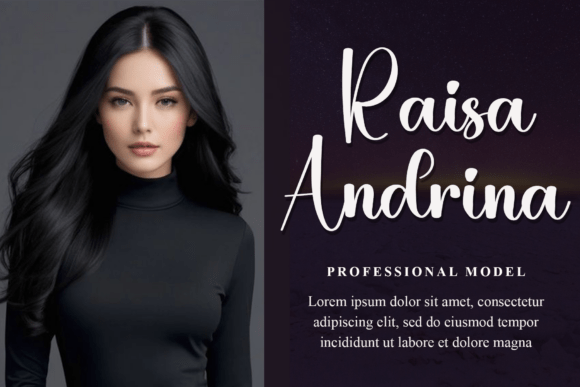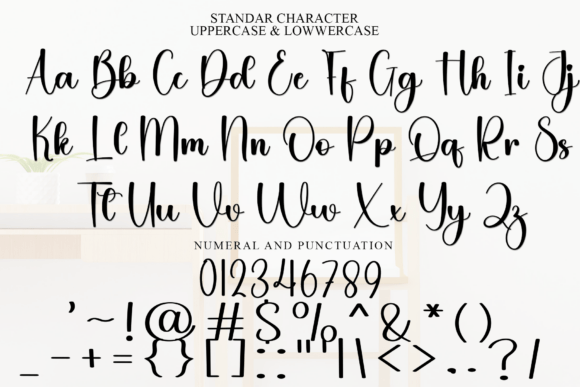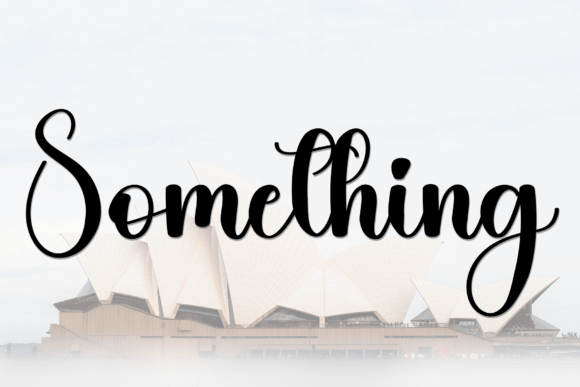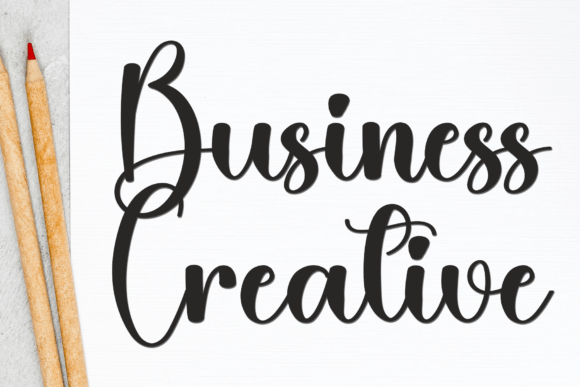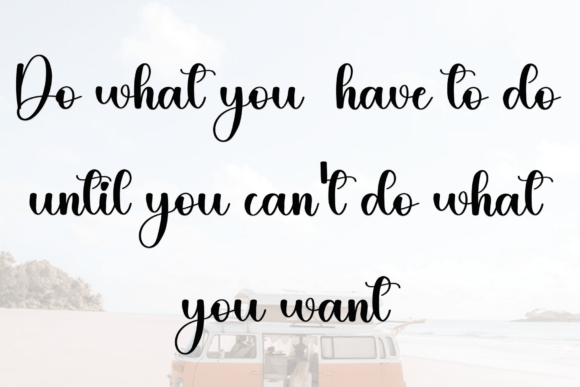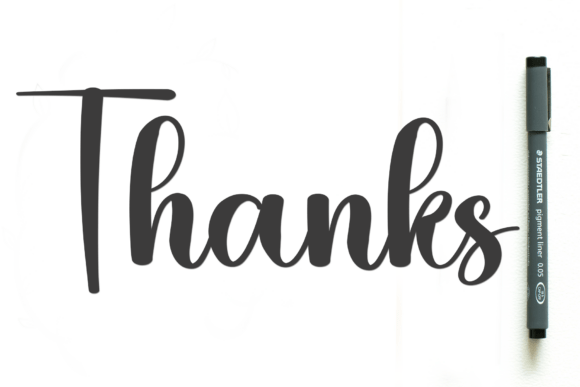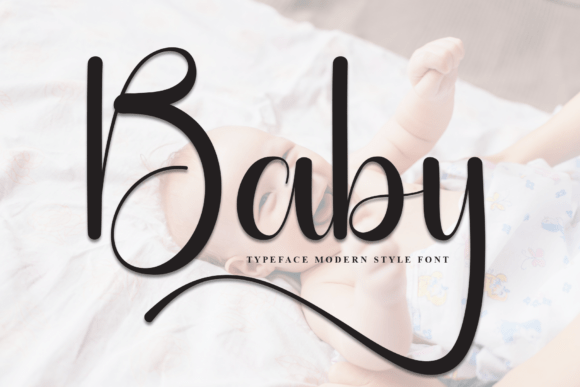
Unlocking the Beauty of Handwritten Touch
Have you ever felt the joy of scribbling down your thoughts on a piece of paper, the ink flowing effortlessly onto the page? It’s a moment of pure creativity, where the lines and curves of your handwriting bring your thoughts to life. If you’re looking to infuse this same magic into your digital designs, you’re in luck. Meet the Angela Heart Font, a stunning and versatile typeface that captures the essence of handwritten charm.
This beautiful font is designed to add a touch of warmth and personality to your designs, making it perfect for a wide range of creative projects. With its soft, unique strokes, the Angela Heart Font is sure to make your designs stand out from the crowd. Whether you’re a seasoned designer or just starting out, this font is a valuable addition to your toolkit, offering endless possibilities for creative expression.
Angela Heart Font Key Features
- Character Set: The font includes a comprehensive set of characters, including uppercase and lowercase letters, numbers, punctuation marks, and special characters, making it suitable for various types of designs.
- Unique Characteristics: This font features a unique, hand-drawn design with a mix of elegant and playful elements, making it perfect for creating eye-catching and memorable designs.
- Style Variations: Angela Heart Font includes multiple style variations, such as regular, bold, italic, and bold italic, allowing designers to experiment with different looks and feels.
Designer Review: Angela Heart Font
Overall, I think the Angela Heart Font is a lovely addition to any design project. The delicate script style makes it perfect for wedding invitations, birthday cards, and other personal greeting cards. ✨
The font’s main strength lies in its ability to convey a sense of elegance and sophistication. It’s also highly legible, making it suitable for a wide range of text sizes. ✨
- Delicate script style that adds a touch of elegance to any design project
- Highly legible, making it suitable for a wide range of text sizes
- Perfect for wedding invitations, birthday cards, and other personal greeting cards
However, there are some limitations to consider. ⚠️ The font’s script style can be a bit difficult to read at very small text sizes, and it may not be the best choice for headlines or titles. Additionally, the font’s design may not be suitable for all types of projects, such as tech or business-related designs.
Overall, I would recommend the Angela Heart Font for designers who are looking for a beautiful, elegant script font to add a touch of sophistication to their projects. While it may have some limitations, it’s a great choice for personal and social designs.
For best results, use the Angela Heart Font in titles and headings to create a whimsical and playful feel.
For best results, use the Angela Heart Font in creative projects, such as invitations and greeting cards.
For best results, use the Angela Heart Font in titles and headings to add a touch of elegance and sophistication.
The Angela Heart Font is perfect for:
- Baby shower invitations and decorations
- Valentine’s Day cards and gifts
Remember to use the Angela Heart Font sparingly to avoid overwhelming the design.